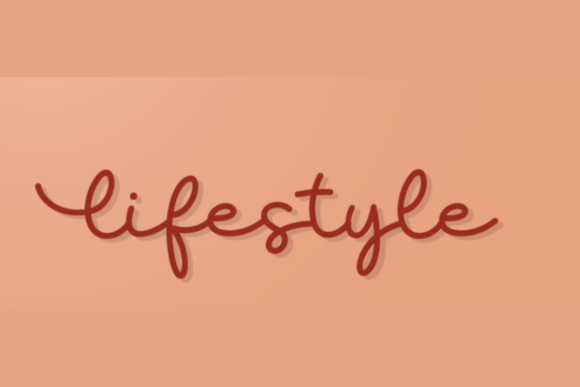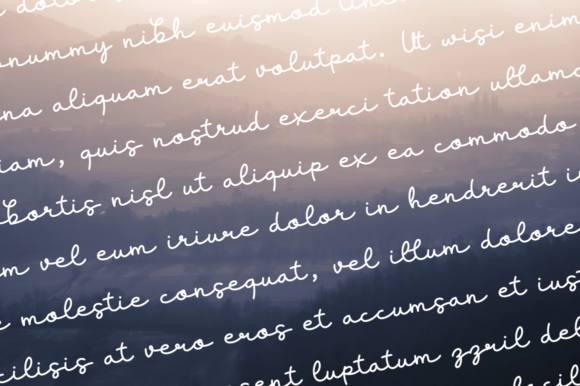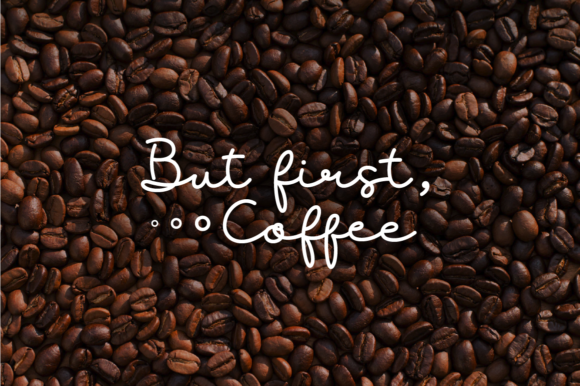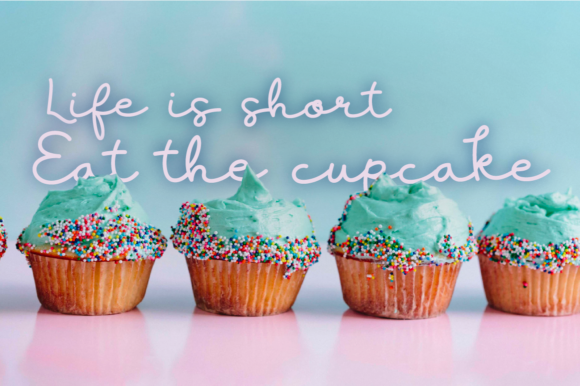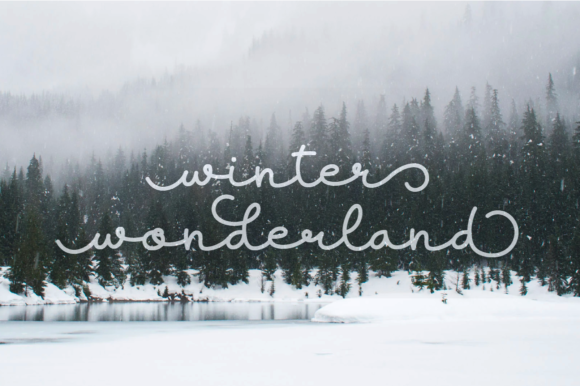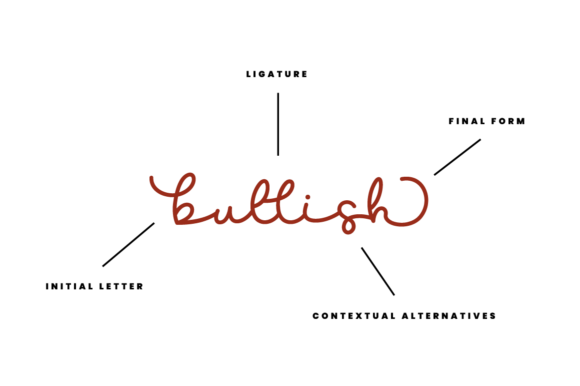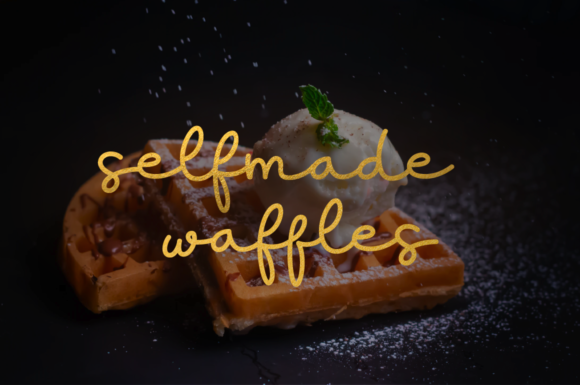
Lifestyle Font
Introducing Lifestyle: The Clean and Natural Handwritten Font
Discover the beauty of Lifestyle, a clean and natural handwritten font that exudes a lovely and delicate style. With its charming appeal, Lifestyle will instantly become your top choice for various design projects. Whether you’re writing wedding invitations, crafting cards, or creating any other design that needs a romantic and personalized touch, Lifestyle’s dainty and joyful nature will be the perfect fit.
Lifestyle’s clean and natural handwriting brings a sense of simplicity and authenticity to your designs. Its letters flow with a seamless beauty, making your text exude a delightful and heartfelt energy.
As a font with a lovely and delicate style, Lifestyle becomes the go-to choice for projects that demand a touch of elegance and charm. Its natural handwriting instantly adds a personalized and romantic feel to your work.
Embrace the beauty of Lifestyle as you embark on your creative journey. Let it be the font that enhances your designs, adding a sense of joy and tenderness in every project.
As you explore the possibilities of Lifestyle, you’ll find it to be a font that enhances your creations with ease. Its clean and natural handwritten beauty transforms your work, ensuring that your wedding invitations, cards, and other designs leave a lasting impression.
So, let Lifestyle be the font that adds a touch of simplicity and delicacy to your designs. Embrace its lovely style, and watch as your creations come alive with a sense of romantic and personalized allure. With Lifestyle as your go-to font, your designs will resonate with beauty and joy, captivating your audience and leaving a lasting impression. Embrace the charm of Lifestyle and create designs that are truly delightful and unforgettable!